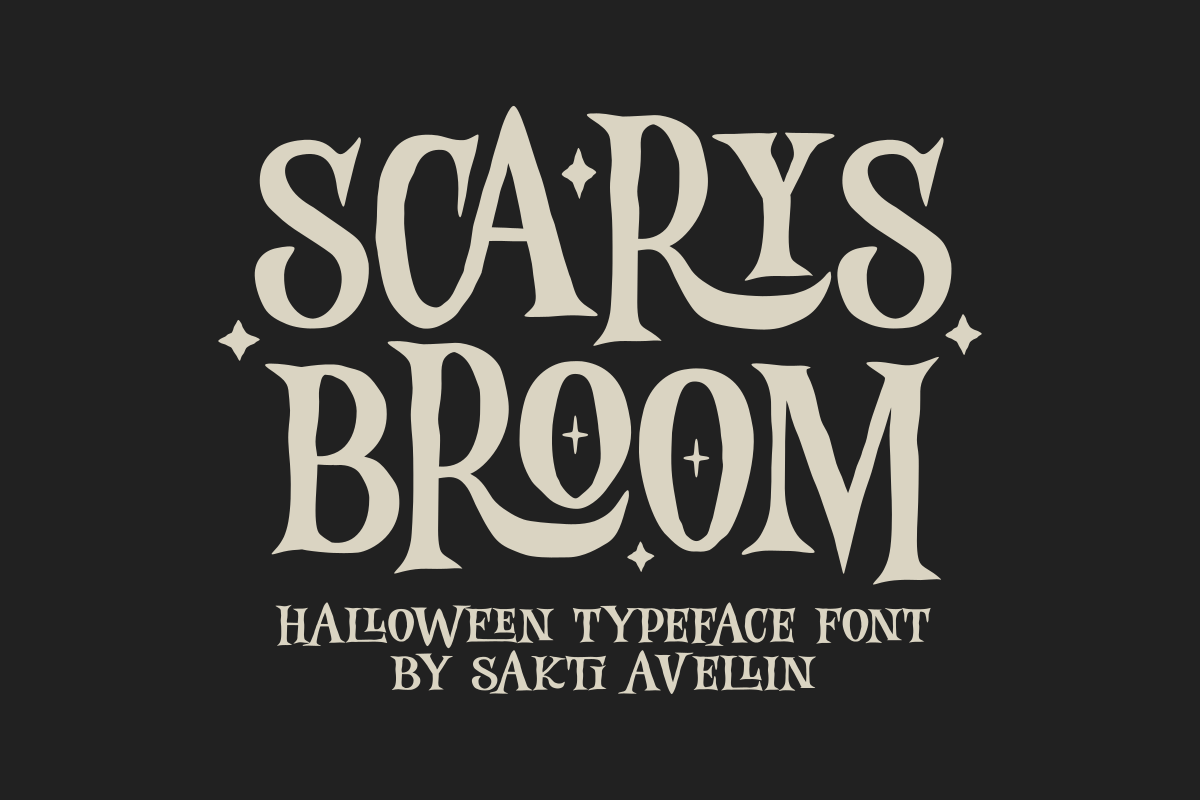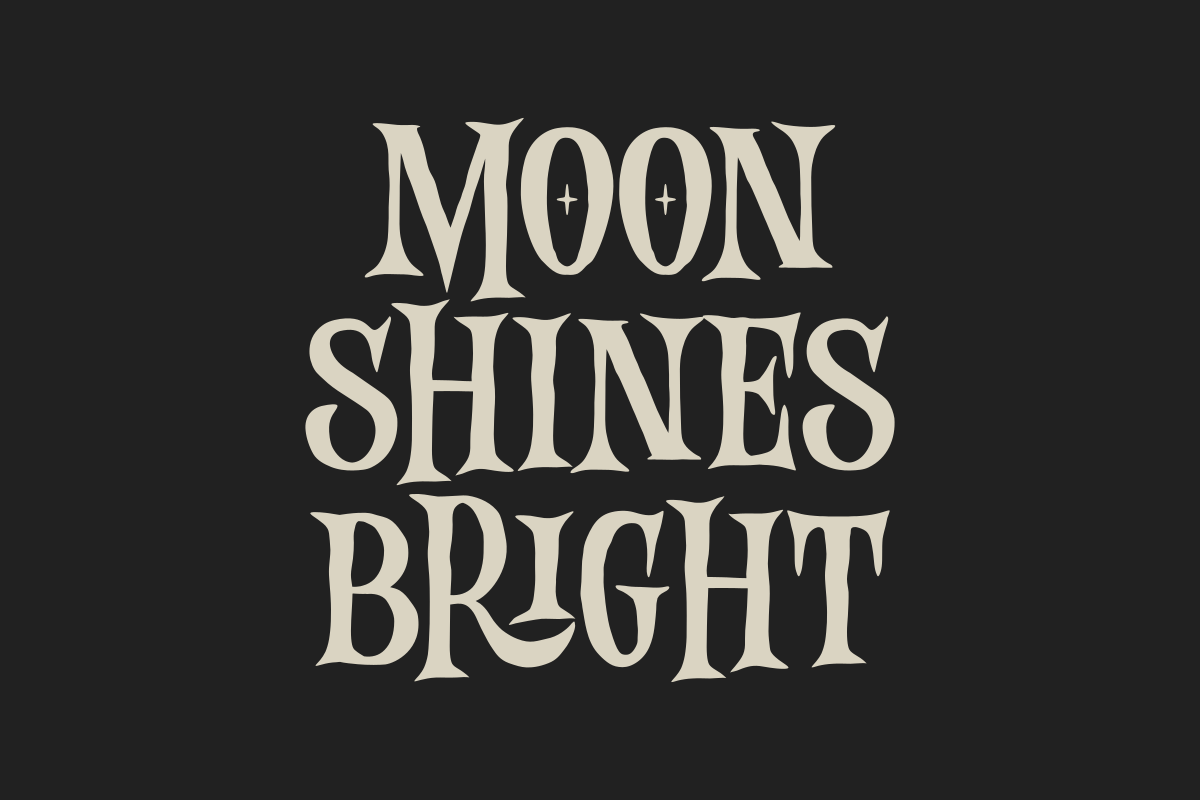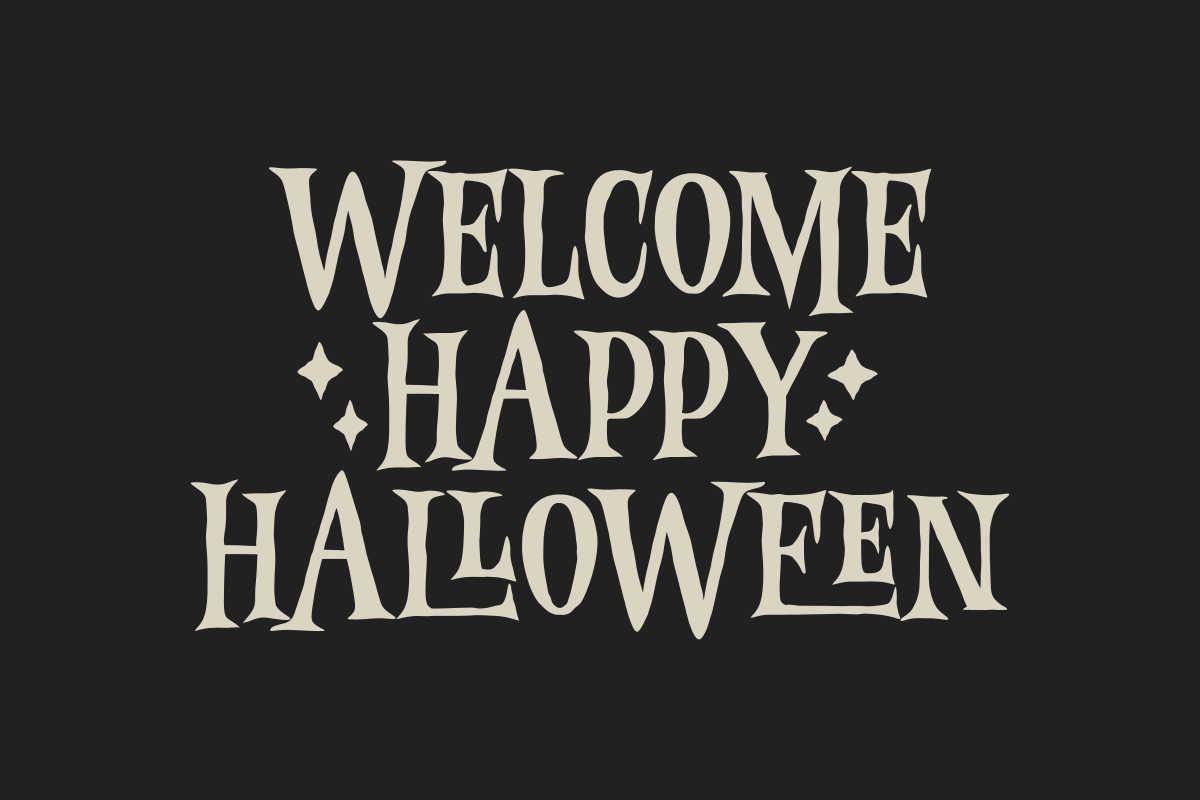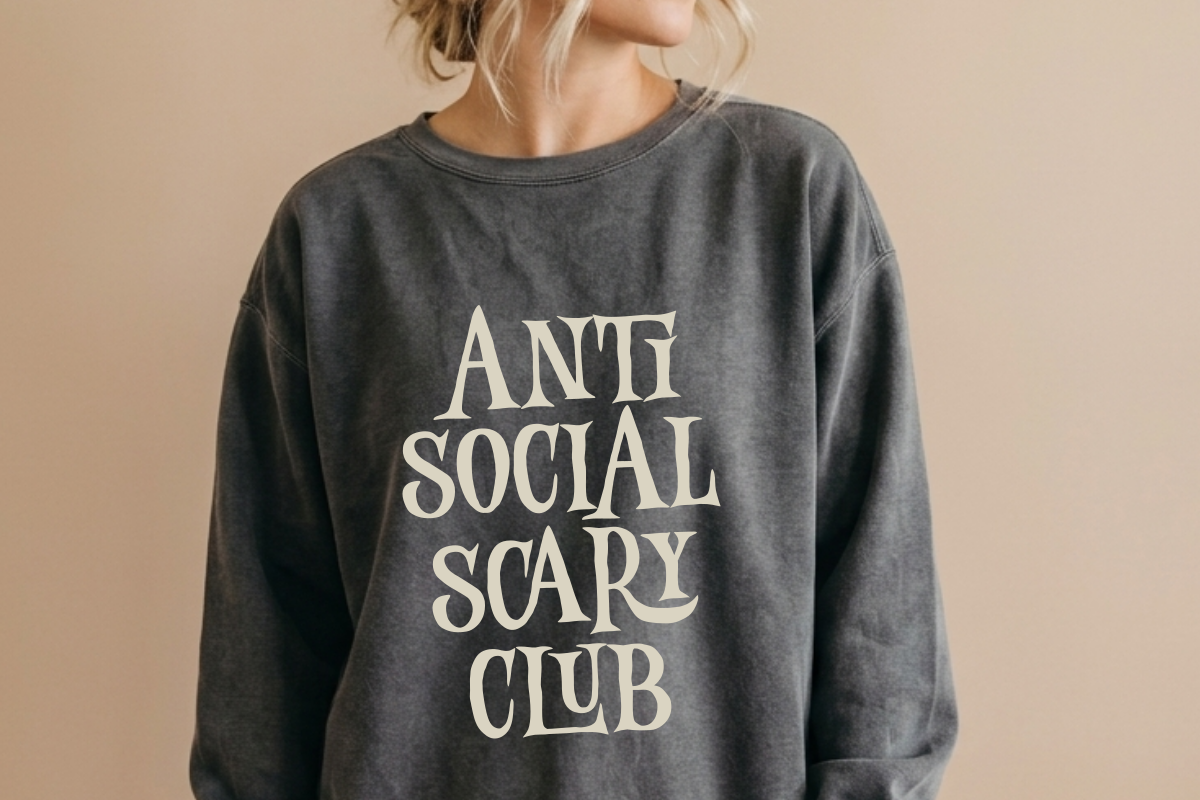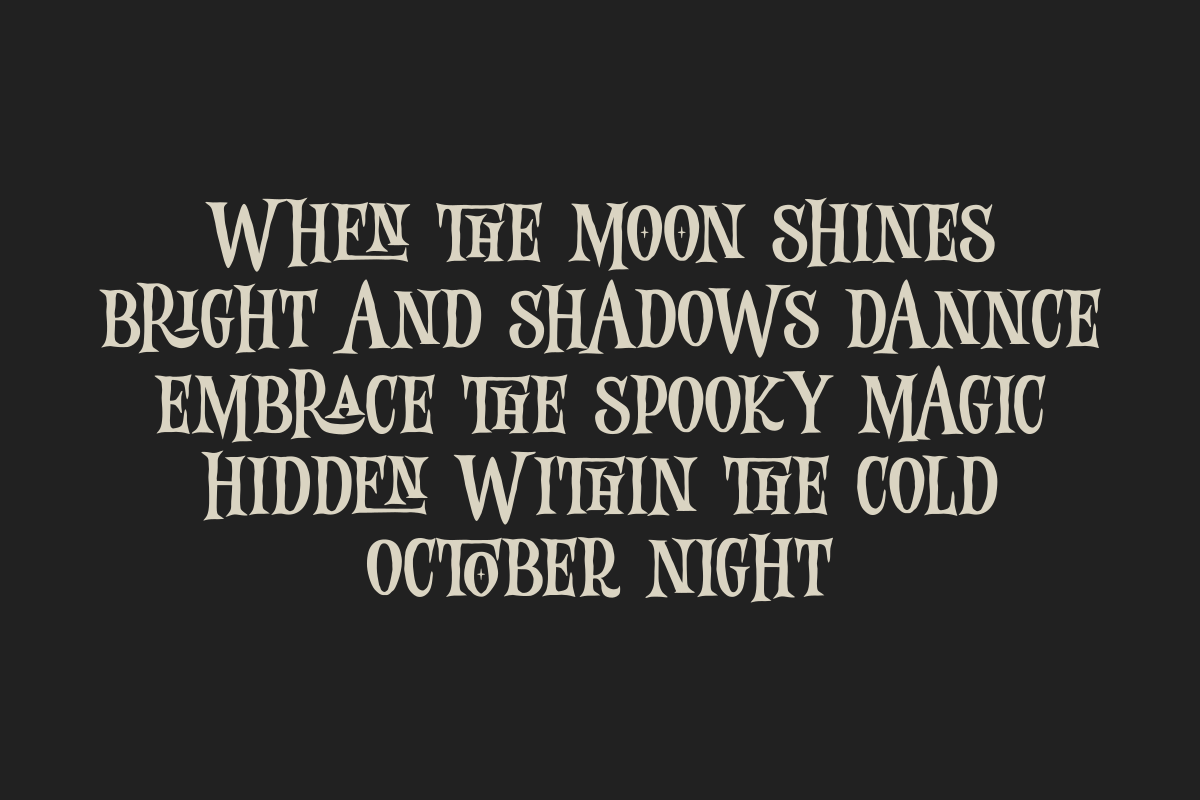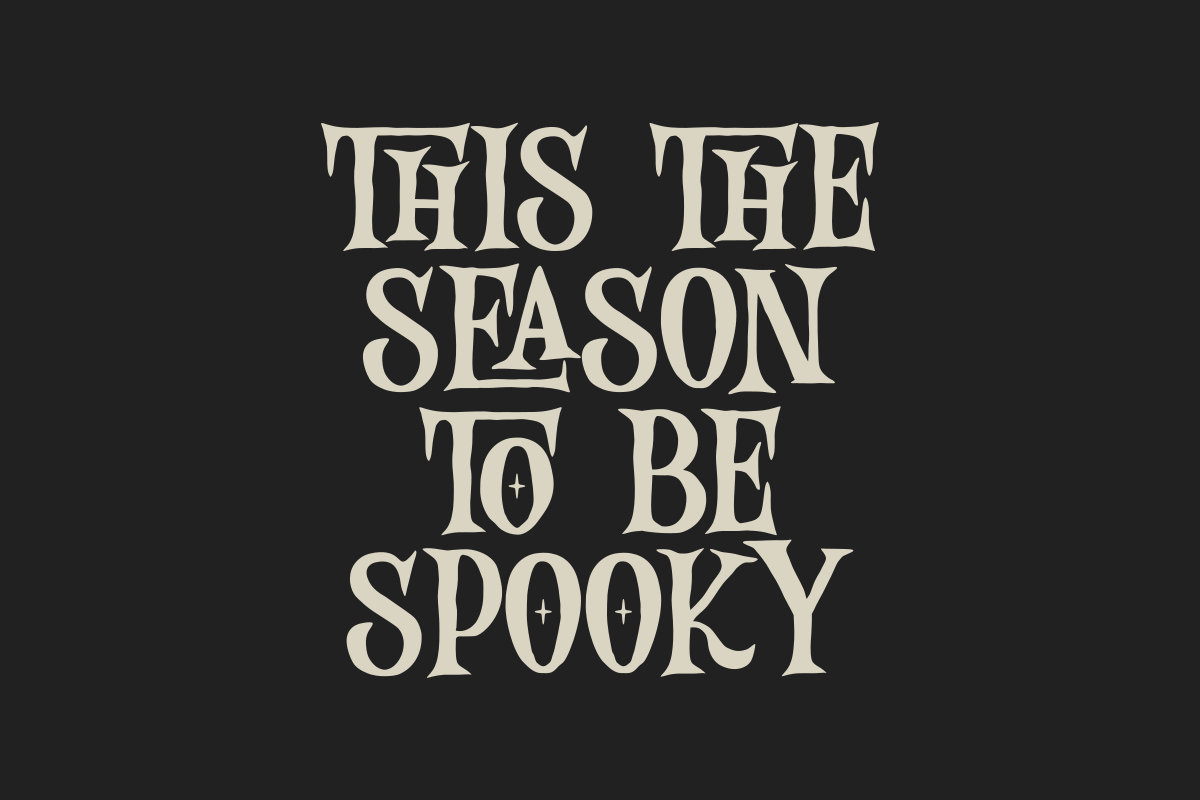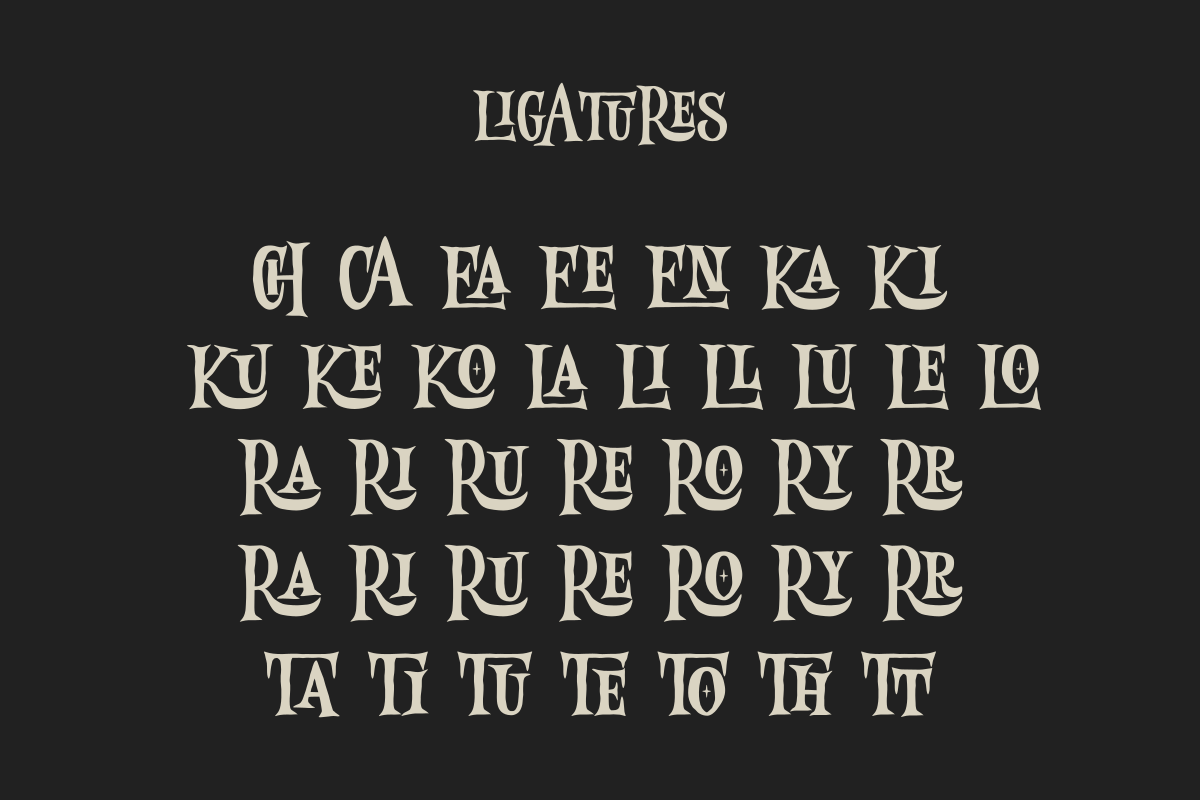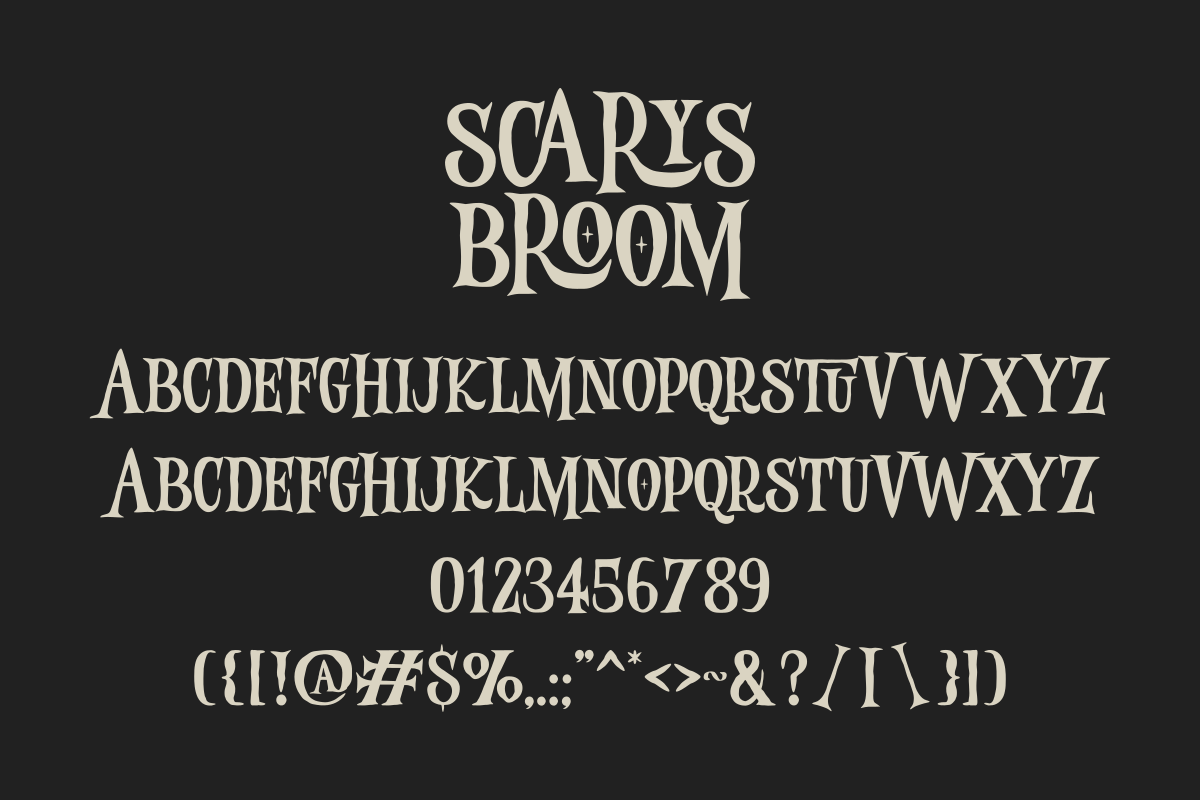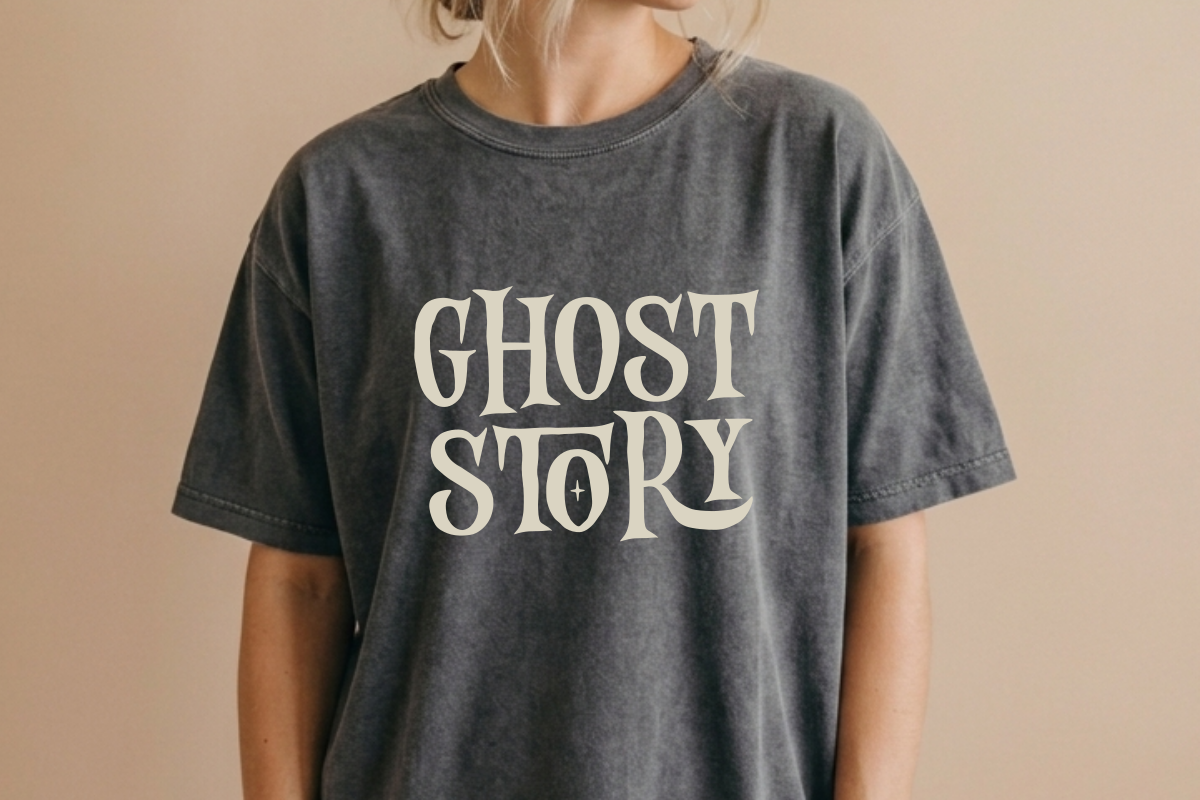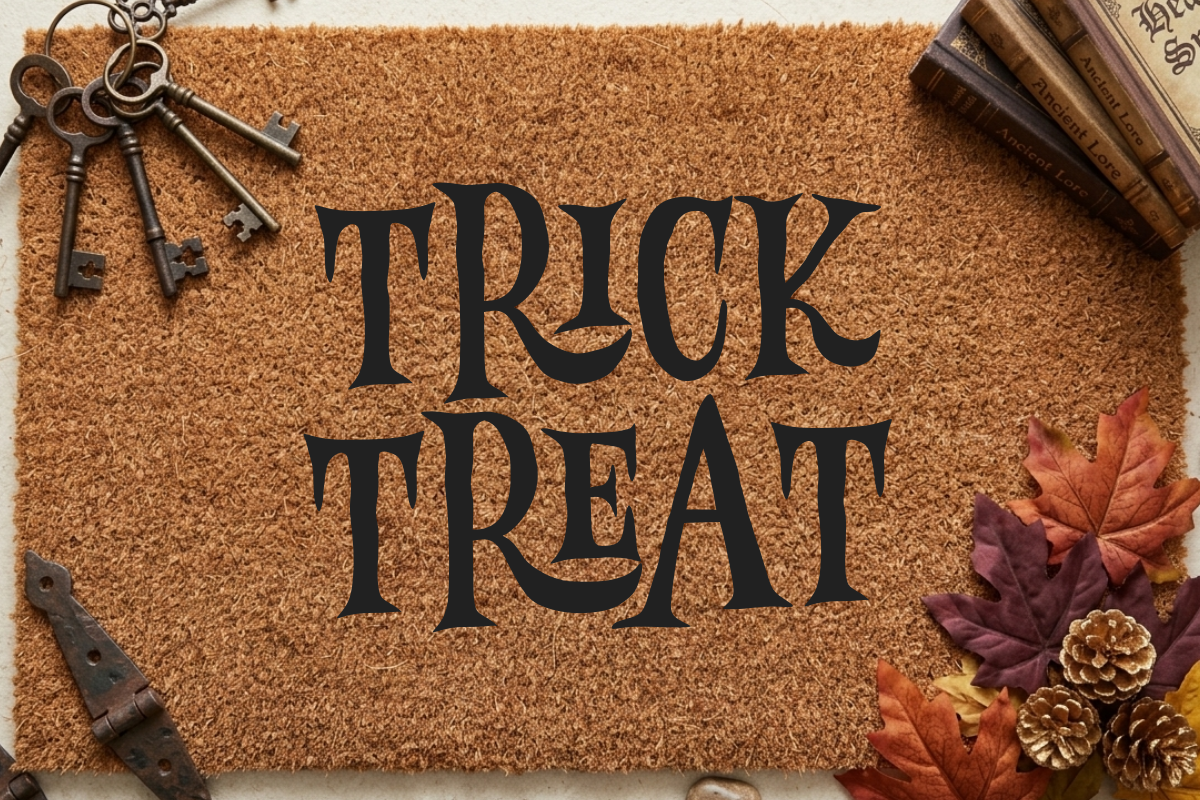
Scarys Broom - Halloween Font
Scarys Broom is a hauntingly beautiful Halloween typeface font designed to bring a mysterious and enchanting vibe to your creative projects. This spooky display font features elegant, sharp letterforms with whimsical, witchy curves and decorative star accents, making it an ideal choice for Halloween branding, gothic invitations, mystical apparel, and dark-themed social media graphics. Its atmospheric and unique aesthetic ensures your headlines stand out with a magical, handcrafted feel. Whether you are designing for seasonal events, fantasy book covers, or spooky stickers, Scarys Broom adds a bewitching and creative flair to every design.